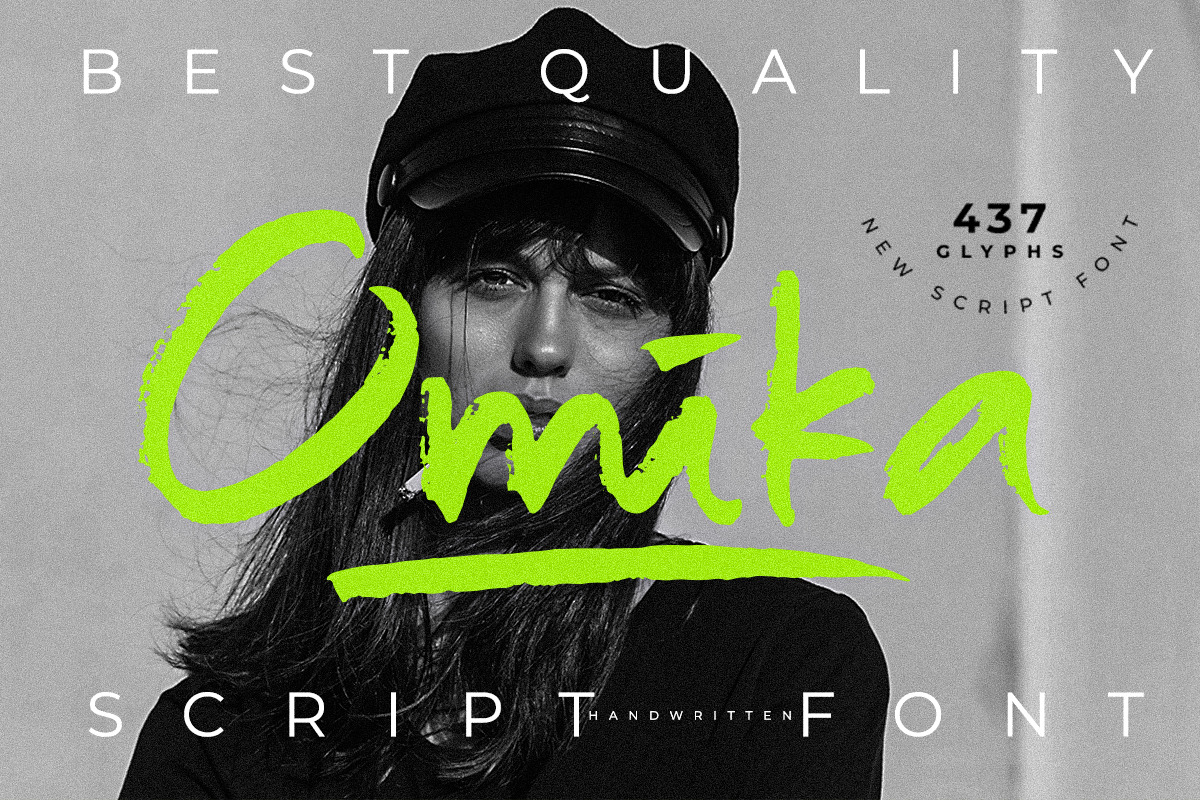
Omika-Handwritten Script Font
Introducing our bold script font, it's a modern and textured typeface that captures the raw, expressive feel of writing with a real board marker. With its thick strokes and authentic hand-drawn style, this font is perfect for making a statement in titles, logos, signatures, branding, posters, and packaging. Whether you're designing a bold headline, personalizing a brand, or crafting a logo that stands out, this font delivers a powerful presence with a touch of handcrafted charm.
Its imperfect, organic texture brings a sense of authenticity and creativity to any project making it a must-have for designers who want their work to feel bold, real, and unforgettable. If you download Omika font features are ligatures, swashes, lowercase alternates and you will get OTF and TTF format font.